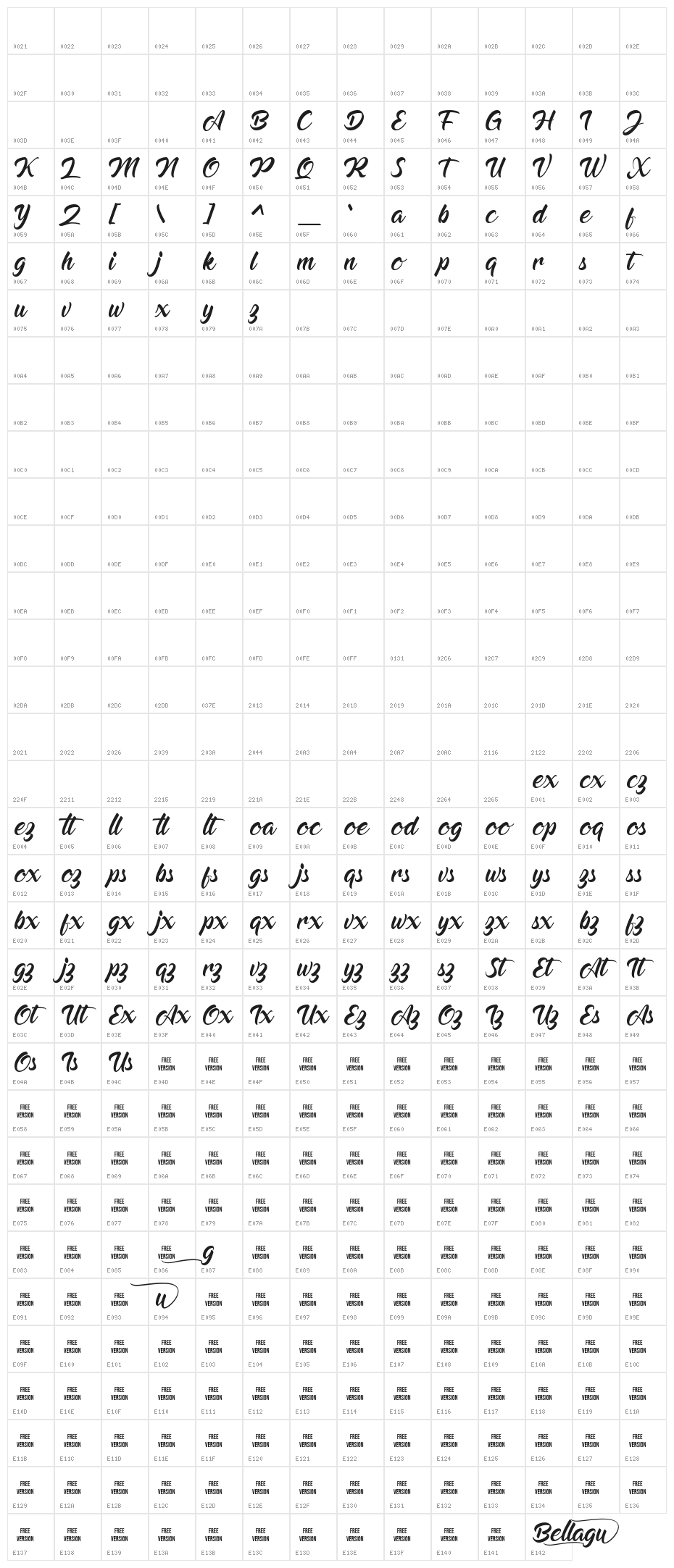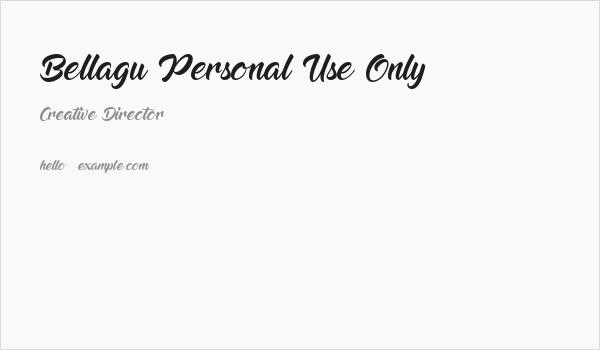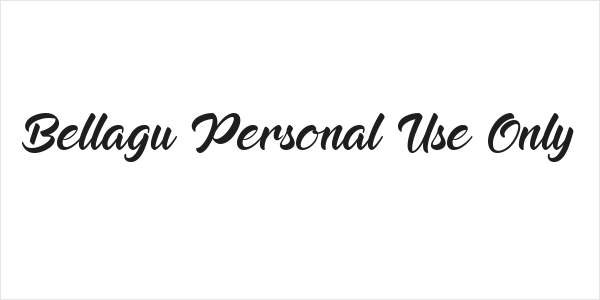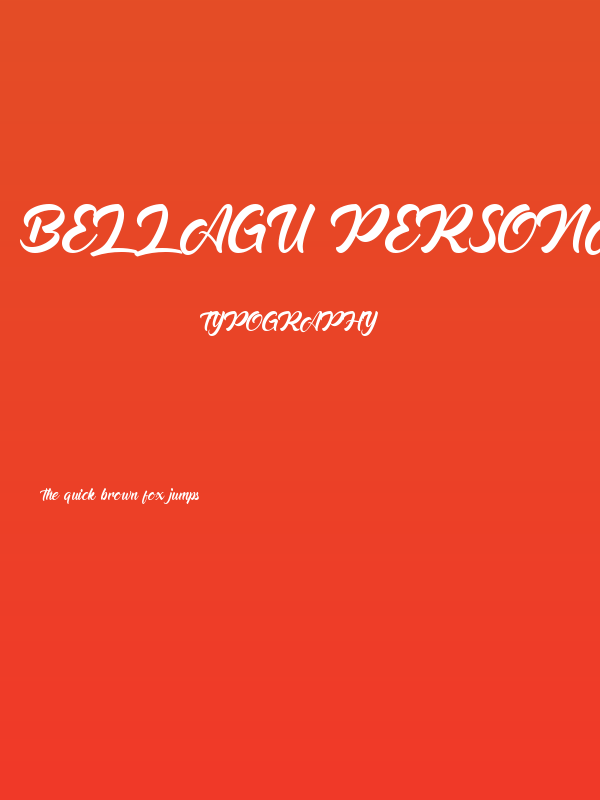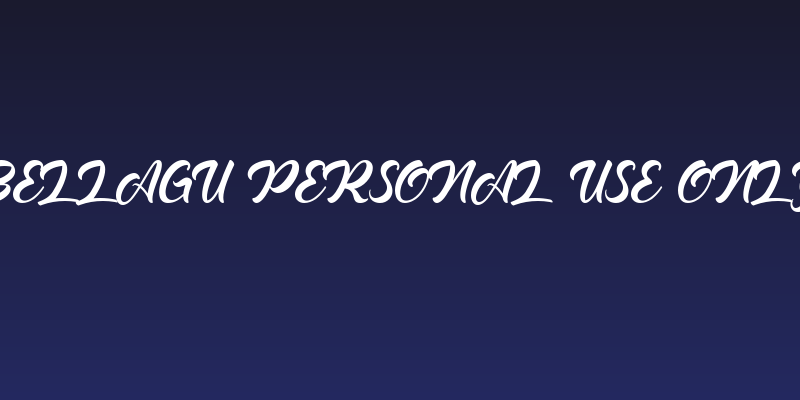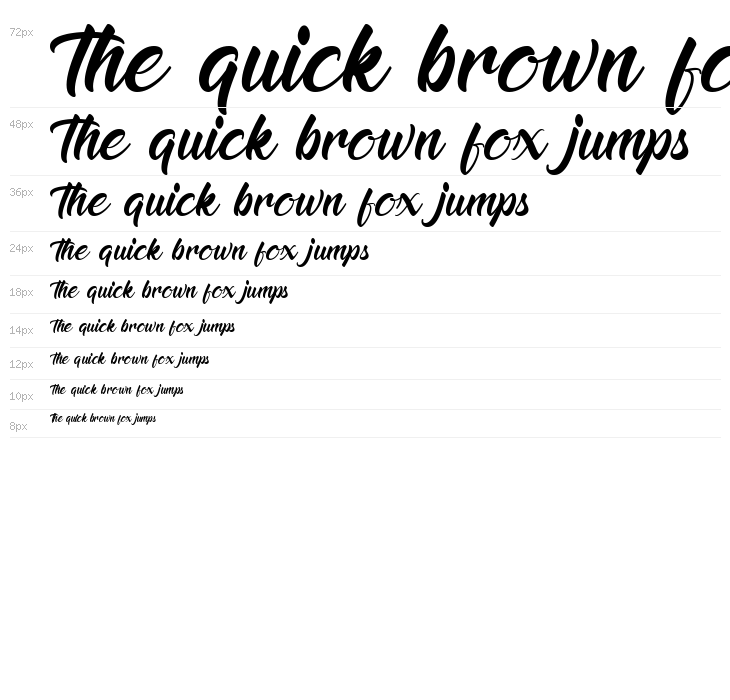
Bellagu Personal Use Only Font
Bellagu Personal Use Only Description
This font features an elegant and flowing script style, characterized by its smooth, cursive strokes and a sense of fluidity. The uppercase letters are bold and sweeping, with a graceful flair that adds a touch of sophistication. The lowercase letters maintain a consistent rhythm, enhancing readability while preserving the decorative nature. The font's design is both artistic and functional, making it suitable for a variety of creative applications. Its distinctive style is perfect for projects that require a personal and artistic touch, such as invitations, greeting cards, and branding materials.
| Proposed Projects | Ideal for invitations, greeting cards, branding, and artistic projects. |